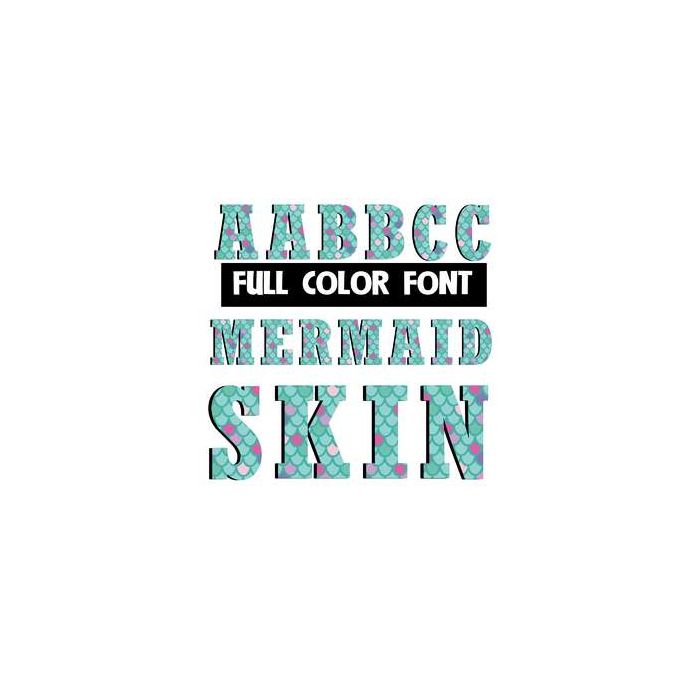
This full-color font features letters covered in mermaid scales. Both cases are different. This font works best for titles, displays, posters and more. Please note color fonts will show as black in non compatible programs. This font type is compatible with Silhouette Studio.